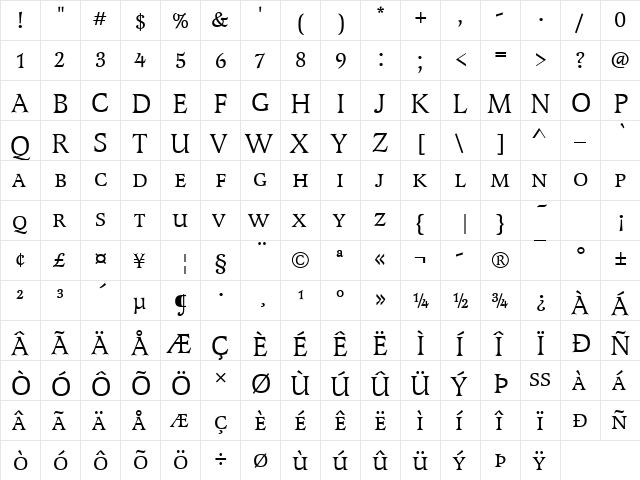
LatienneURWDCDReg Regular
Design Context for LatienneURWDCDReg Typeface
LatienneURWDCDReg offers clean, dependable letterforms without strong stylistic allegiance, making it a practical choice for designers who need flexibility.